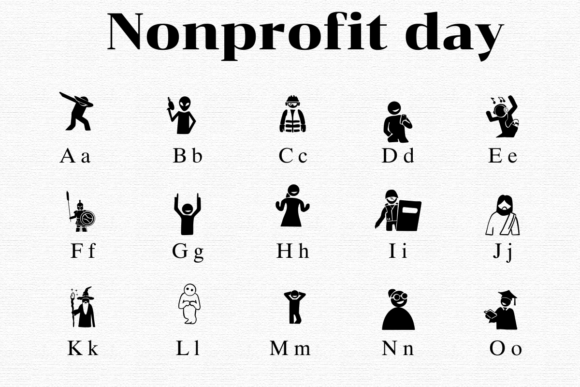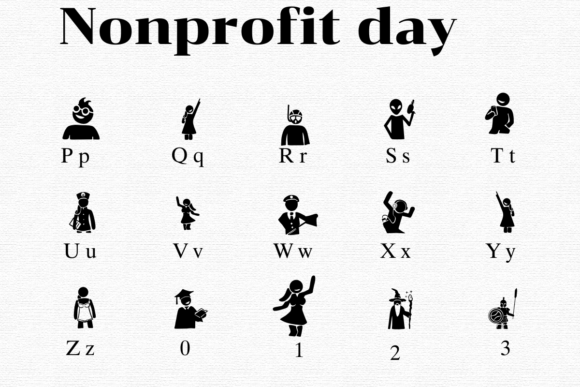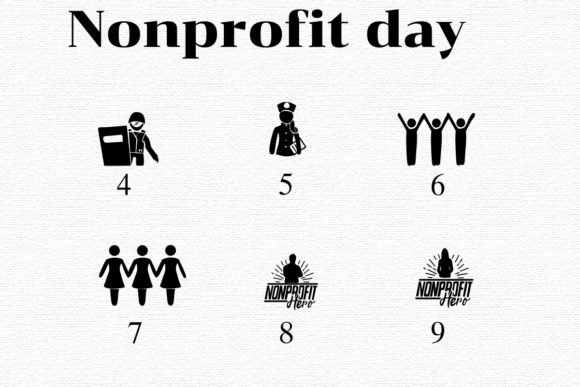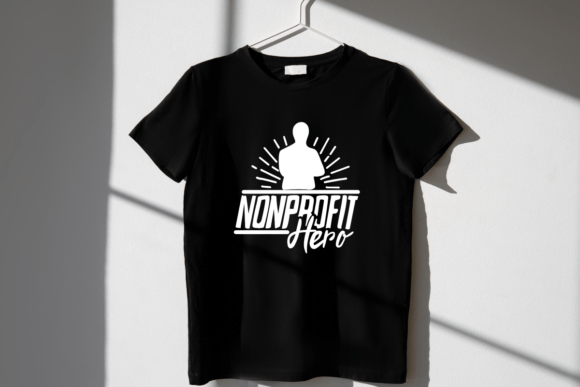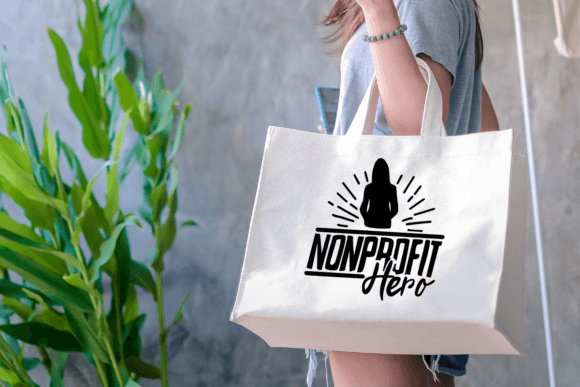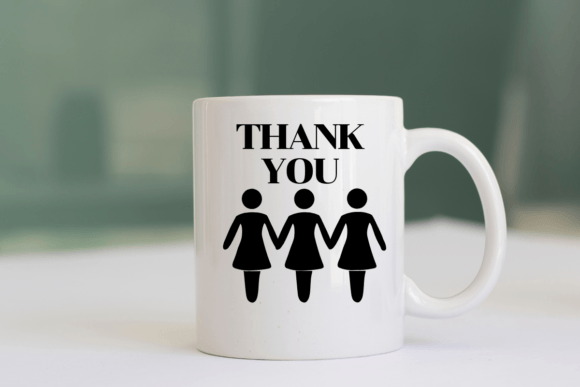
Introduction to Nonprofit Day Font
Nonprofit Day is a special event to celebrate and support organizations that help our communities.
Imagine a fun dingbat font filled with all sorts of characters like aliens, policemen, nurses, and many others, each representing the different people and roles that contribute to making the world a better place Itโs a day to appreciate everyoneโs efforts in giving back and making a difference.